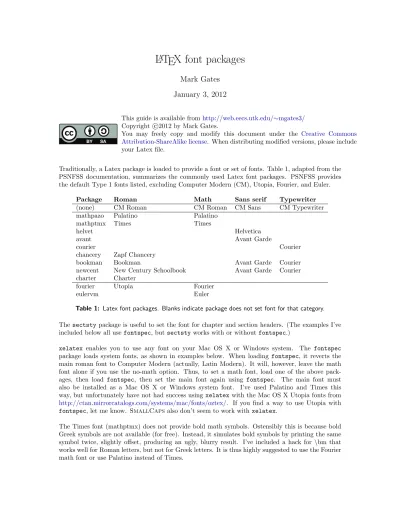
L
A
TEX font packages
Traditionally, a Latex package is loaded to provide a font or set of fonts. Table 1, adapted from the PSNFSS documentation, summarizes the commonly used Latex font packages. PSNFSS provides the default Type 1 fonts listed, excluding Computer Modern (CM), Utopia, Fourier, and Euler.
Package Roman Math Sans serif Typewriter
(none) CM Roman CM Sans CM Typewriter
mathpazo Palatino
mathptmx Times Times
helvet Helvetica
avant Avant Garde
courier Courier
chancery Zapf Chancery
bookman Bookman Avant Garde Courier
newcent New Century Schoolbook Avant Garde Courier charter Charter
fourier Utopia Fourier
eulervm Euler
Table 1: Latex font packages. Blanks indicate package does not set font for that category. Thesectstypackage is useful to set the font for chapter and section headers. (The examples I’ve included below all usefontspec, butsectstyworks with or withoutfontspec.)
xelatex enables you to use any font on your Mac OS X or Windows system. The fontspec package loads system fonts, as shown in examples below. When loading fontspec, it reverts the main roman font to Computer Modern (actually, Latin Modern). It will, however, leave the math font alone if you use the no-math option. Thus, to set a math font, load one of the above pack-ages, then load fontspec, then set the main font again using fontspec. The main font must also be installed as a Mac OS X or Windows system font. I’ve used Palatino and Times this way, but unfortunately have not had success usingxelatex with the Mac OS X Utopia fonts from http://ctan.mirrorcatalogs.com/systems/mac/fonts/oztex/. If you find a way to use Utopia with fontspec, let me know. SmallCapsalso don’t seem to work with xelatex.
The Times font (mathptmx) does not provide bold math symbols. Ostensibly this is because bold Greek symbols are not available (for free). Instead, it simulates bold symbols by printing the same symbol twice, slightly offset, producing an ugly, blurry result. I’ve included a hack for \bm that works well for Roman letters, but not for Greek letters. It is thus highly suggested to use the Fourier math font or use Palatino instead of Times.
Computer Modern (CM), CM math,
CM sans,
CM typewriter
Bookman,
CM math,
Avant Garde
,
Courier
Charter,
CM math
,
CM sans
New Century Schoolbook,
CM math
,
Avant Garde
,
Courier
Utopia, Fourier math,
CM sans